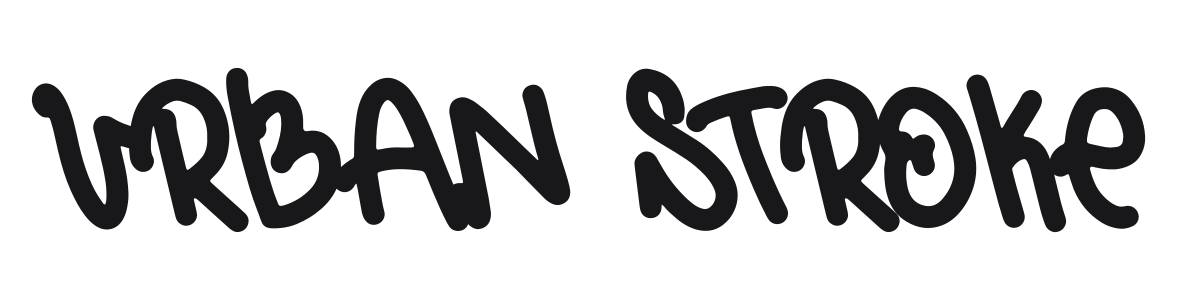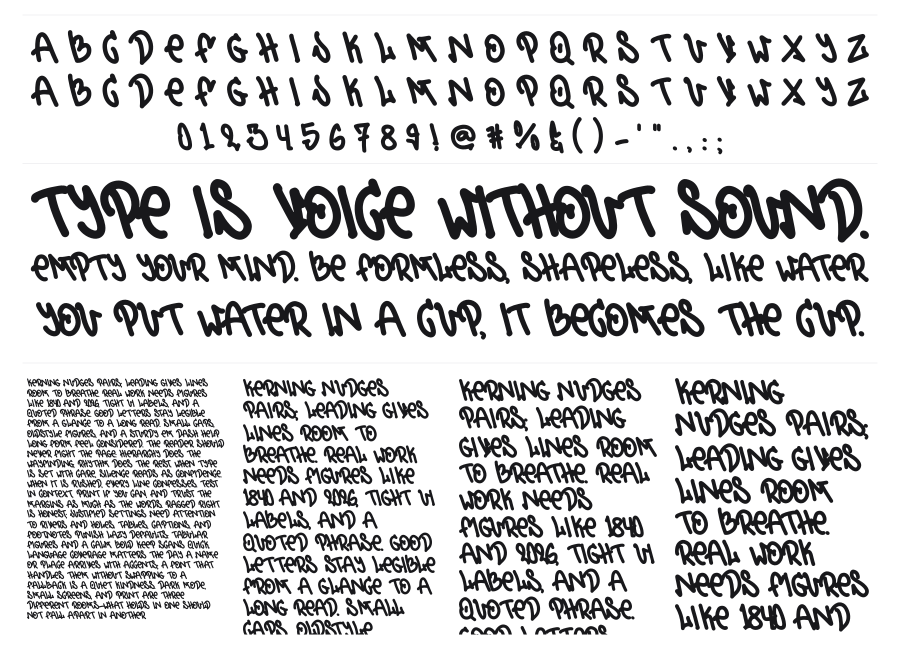
Urban Stroke
Urban Stroke is a bold monoline graffiti script with the raw energy of hand-sprayed street lettering. Characters connect with looping, compact strokes and an irregular bounce that keeps it feeling spontaneous rather than mechanical. Strong at large sizes for posters, apparel graphics, and anything that needs an authentic urban edge.